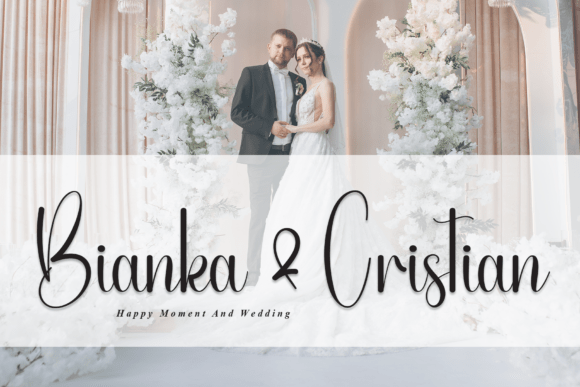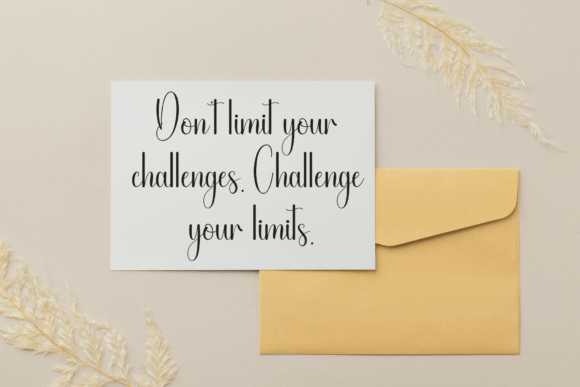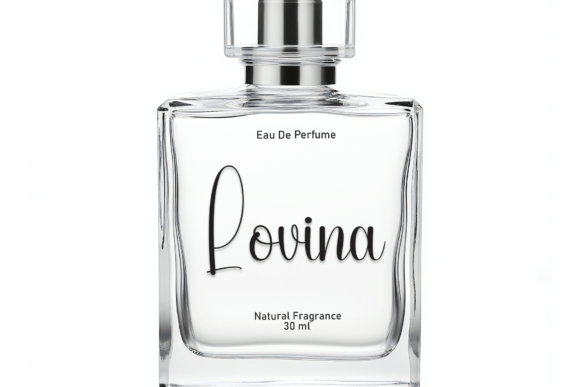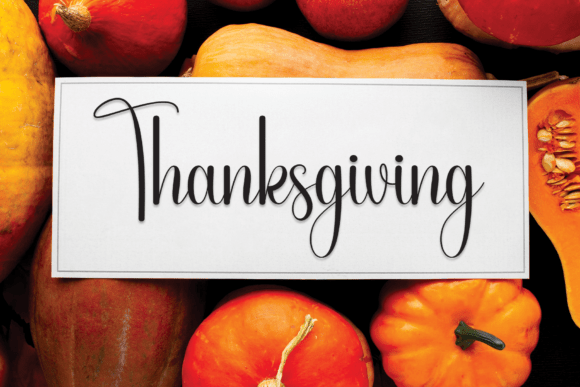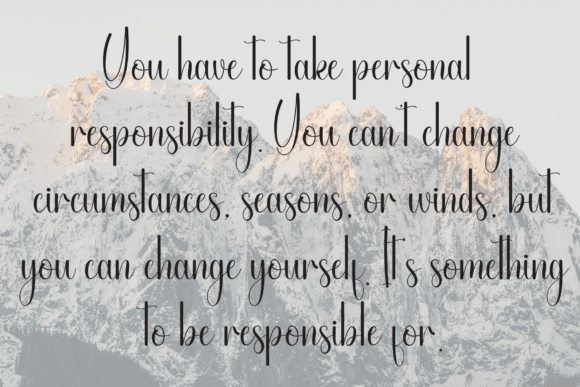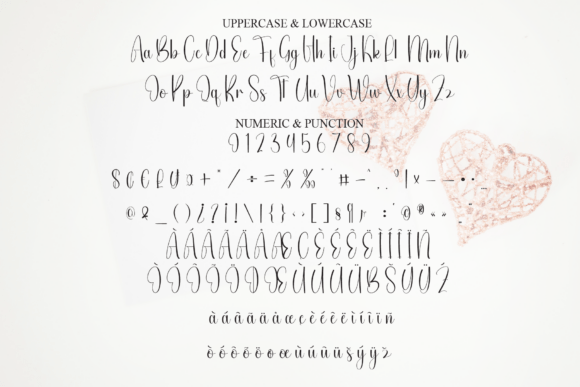
The Perfect Script for Your Next Design Project
Have you ever been scribbling away in your notebook, trying to put your creative ideas onto paper, when suddenly a beautiful handwritten script font appears? It’s as if the pen has a mind of its own, flowing effortlessly across the page. That’s the magic of a well-designed font, and the Bestival Valentine Font is no exception.
This elegant script font is designed to add a touch of sophistication to your branding, invitations, and stationery. With its smooth curves and natural flow, it’s the perfect choice for designers looking to create a timeless and refined look. Whether you’re working on a wedding invitation or a company logo, the Bestival Valentine Font is sure to impress.
Bestival Valentine Font Key Features
- Unique Characteristics: The font features a unique, hand-drawn design with intricate details and flourishes, giving it a distinctive and elegant look.
- Font Style: The font comes in a single style, but it can be easily customized using font editing software to create various effects and moods.
Bestival Valentine Font Review
I recently had the chance to work with the Bestival Valentine Font, and I must say it’s a unique and intriguing choice. ✨ One of the things that works well is its playful and whimsical nature, making it perfect for creative projects that require a touch of romance and nostalgia. The font’s cursive script and ornate details evoke a sense of elegance and sophistication, adding a touch of class to any design.
Another advantage of the Bestival Valentine Font is its versatility. ✨ It can be used for a wide range of applications, from invitations and greeting cards to social media graphics and website headers. The font’s adaptability makes it a great choice for designers who need to create a consistent brand identity across multiple platforms.
While the Bestival Valentine Font has many great qualities, there are some limitations to consider. ⚠️ For one, the font can be quite dense and may not be the best choice for body text, as it can be difficult to read at smaller font sizes. Additionally, the font’s ornate details may not be suitable for designs that require a more minimalist or modern aesthetic.
In conclusion, the Bestival Valentine Font is a beautiful and unique choice for designers who want to add a touch of romance and whimsy to their projects. While it may have some limitations, its versatility and adaptability make it a great option for a wide range of applications.
- Playful and whimsical nature
- Cursive script and ornate details
- Perfect for creative projects
- Highly adaptable
- Not suitable for body text at smaller font sizes
- May not be suitable for minimalist or modern designs
Tips for Getting the Most Out of the Bestival Valentine Font
Use the Bestival Valentine Font to create a romantic and elegant atmosphere.
Pair the font with a minimalist background and simple graphics.
Experiment with layer blending modes and effects to add depth and visual interest.
Use the font to create a sense of intimacy and warmth.
The Bestival Valentine Font is perfect for:
Valentine’s Day cards and gifts.
Love-themed social media posts and graphics.
Romantic restaurant menus and branding.